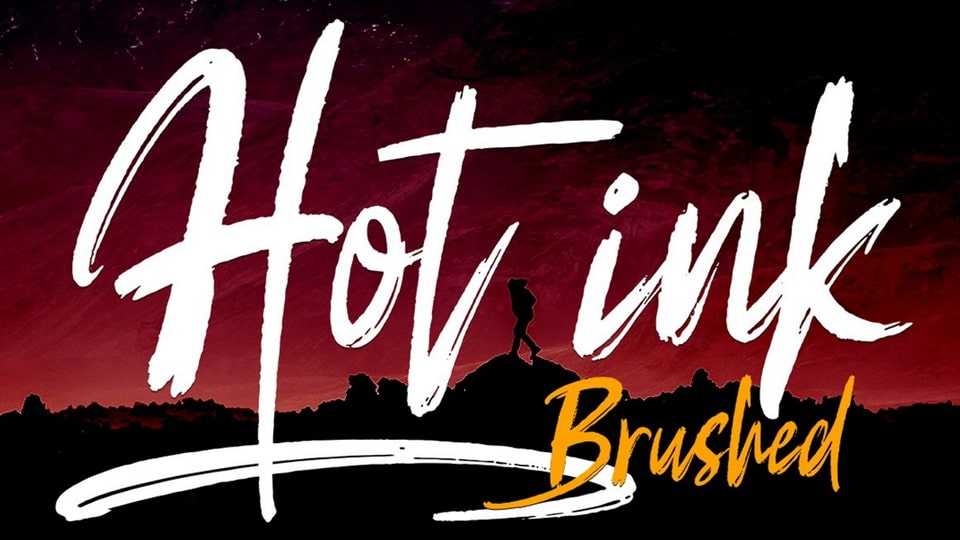
Download Hot Ink font, a casual, fun handwritten typeface, created by using a brush pen. Clean and a little bit quirky, this font is the perfect fit for all of your logos, branding, social media, and crafty DIY projects.